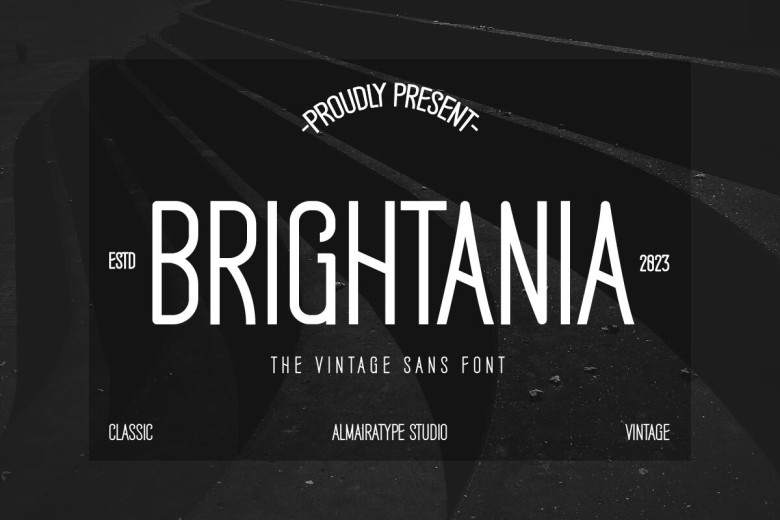
Brightania Font
Brightania is an elegant and modern sans-serif font that features classic features with modern and trendy details. Perfect for headlines, crafts and branding purposes; use with clothing such as business clothing, print materials such as T-shirts and Cricut silhouettes; as well as other creative ideas!
Brightania Sans Serif Font